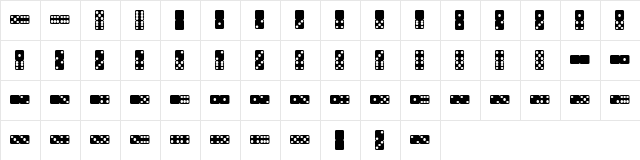
domik Bold
| Foundry | hertoy |
| Designer | hertoy |
Design Context for domik Typeface
domik is a composed and adaptable typeface that performs quietly and consistently across a wide range of design contexts. The heavy weight commands attention and anchors typographic hierarchies.